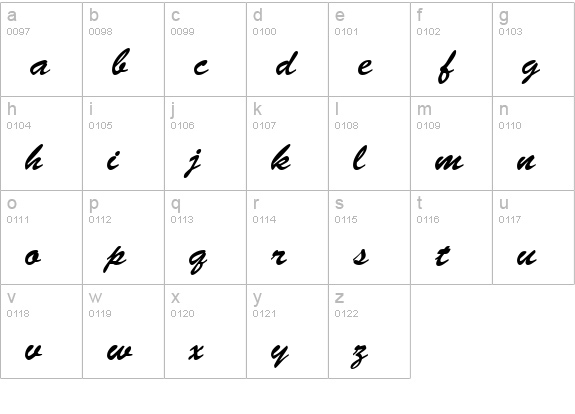
BrushedScript Font Details
BrushedScript is a charming and elegant font that adds a touch of sophistication to any design project. With its handcrafted brush strokes and flowing curves, this font exudes a sense of creativity and style. Whether you're creating wedding invitations, logos, or social media graphics, BrushedScript is the perfect choice to make your text stand out. The best part? BrushedScript is completely free to download at FontsMarket.com. You can easily access this stunning font and use it in your personal and commercial projects without any restrictions. Don't miss out on the opportunity to enhance your designs with the beauty and versatility of BrushedScript. Download it today and let your creativity shine!